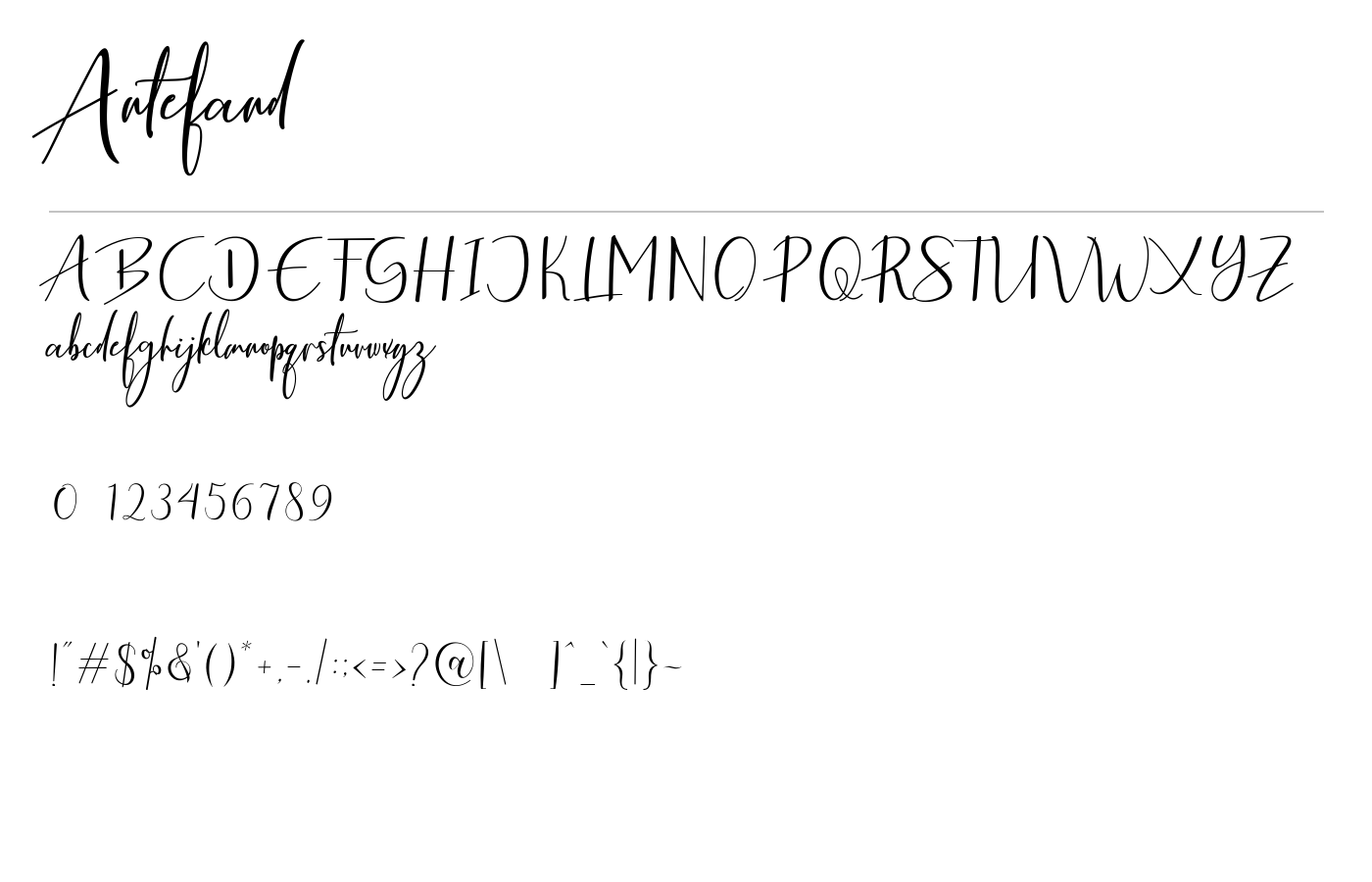
Antefand is a delicate, handwritten script font with a graceful, flowing style that feels both elegant and personal. Its slender strokes and tall, airy letterforms give it a modern yet romantic charm, making it perfect for invitations, branding, and any design that aims to convey sophistication with a warm, approachable touch. This font works especially well in creative projects where a stylish, hand-crafted look is desired.
Antefand Font